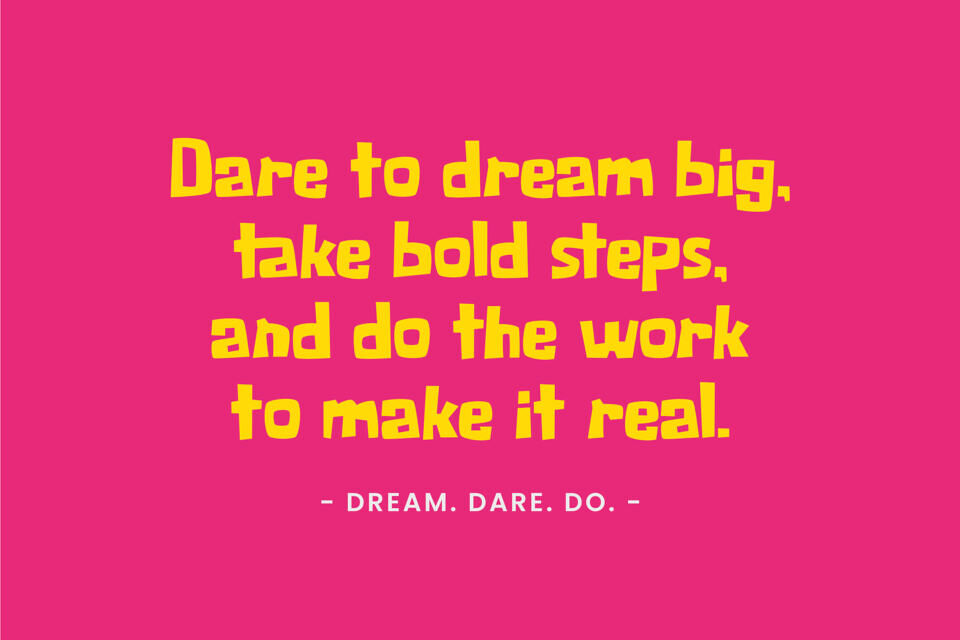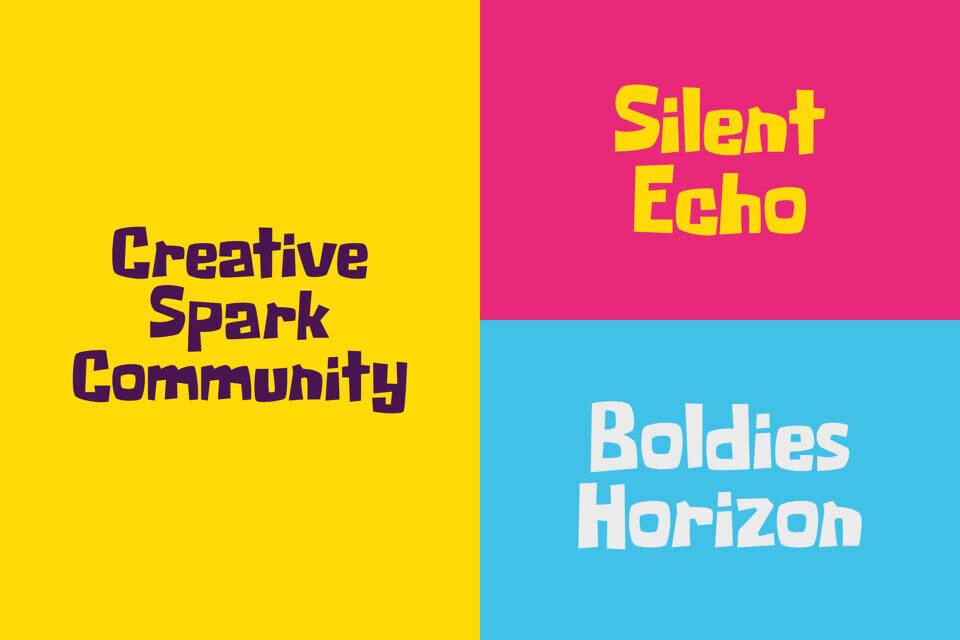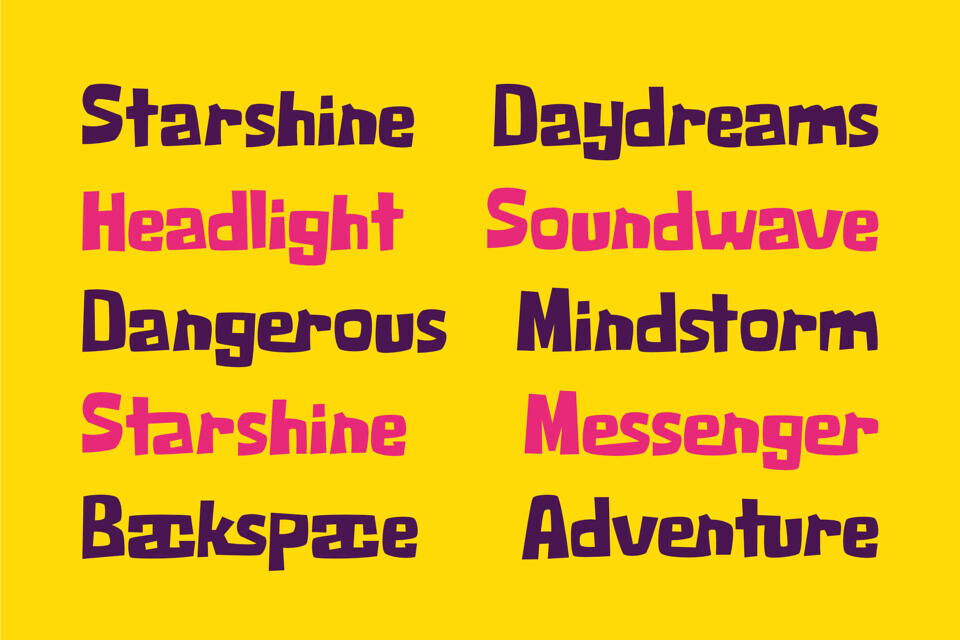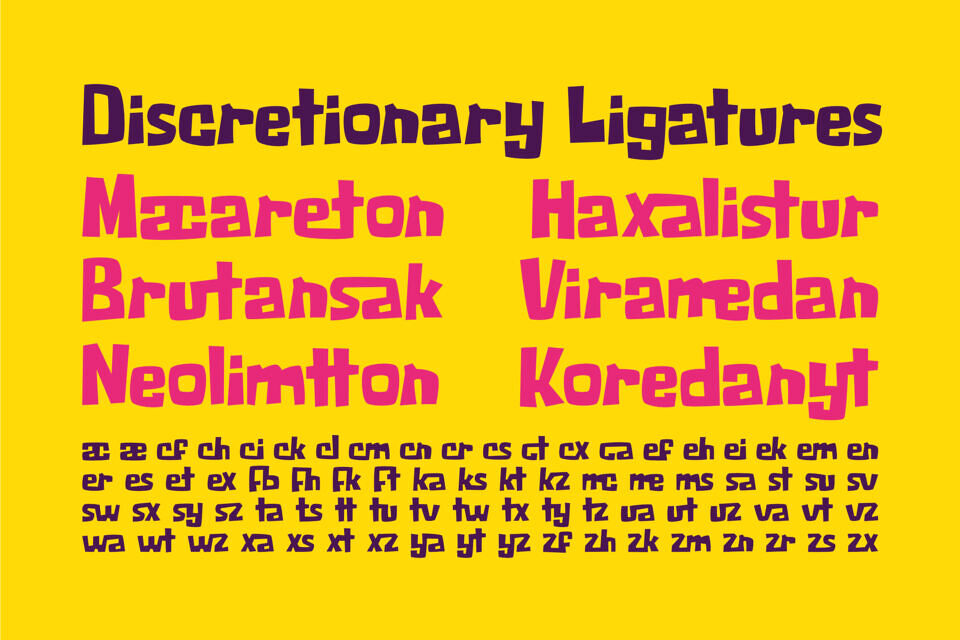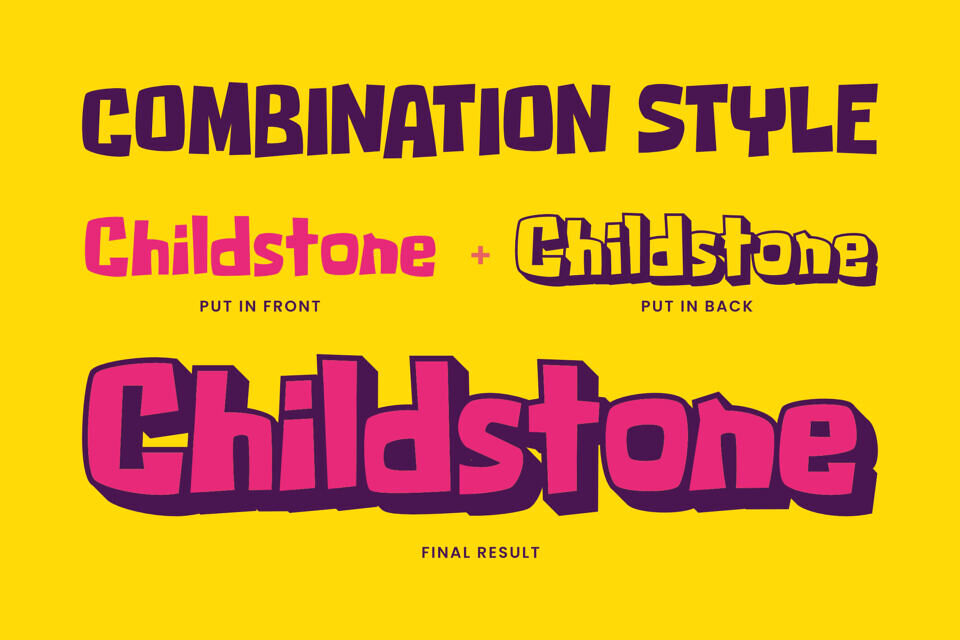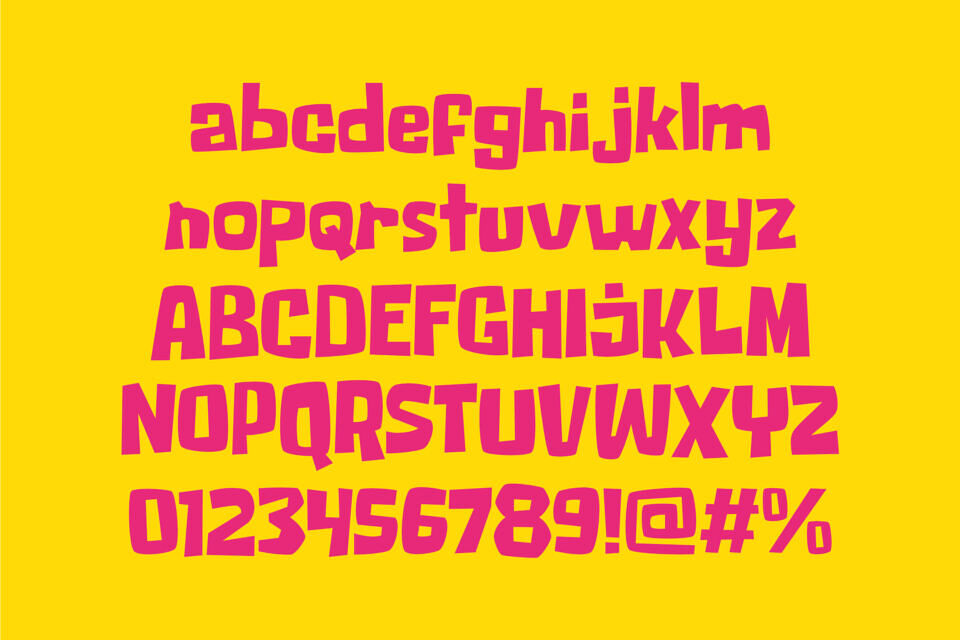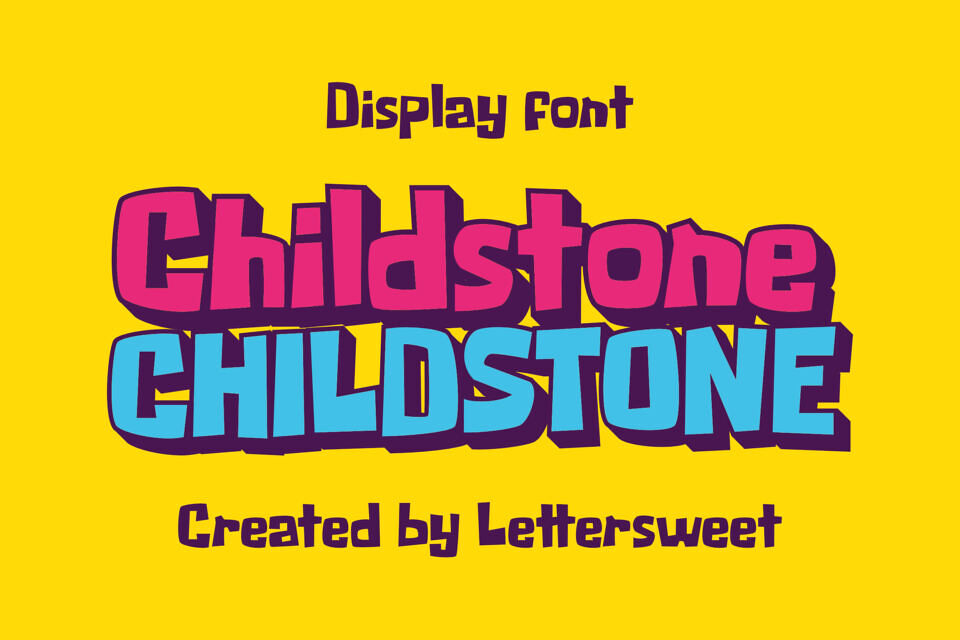
Childstone Font
Bring your designs to life with Childstone, a bold and bubbly display font bursting with personality! With its playful curves, chunky forms, and a hint of cartoon charm, Childstone is made to shine in any project that calls for fun, friendliness, and energy.
Its quirky letterforms and strong outlines give it a lively, standout appearance, making it a perfect fit for children’s books, toy packaging, posters, birthday invites, logos, YouTube thumbnails, and more. Whether you’re crafting educational worksheets or building a playful brand identity, Childstone brings just the right amount of joy and boldness to your work.
Designed by: Lettersweet